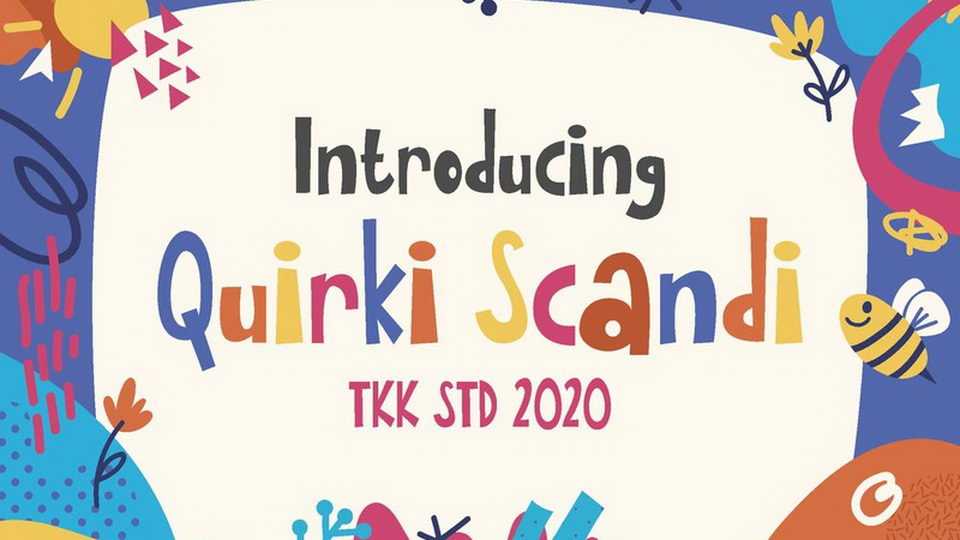
Download Quirki Scandi font, a playful kids typeface. The shape is so good, it has bouncy baseline, sharp corner to emphasize the active kid behaviour, and the clarity of each letter…makes no mistakes on every sentences it spell.